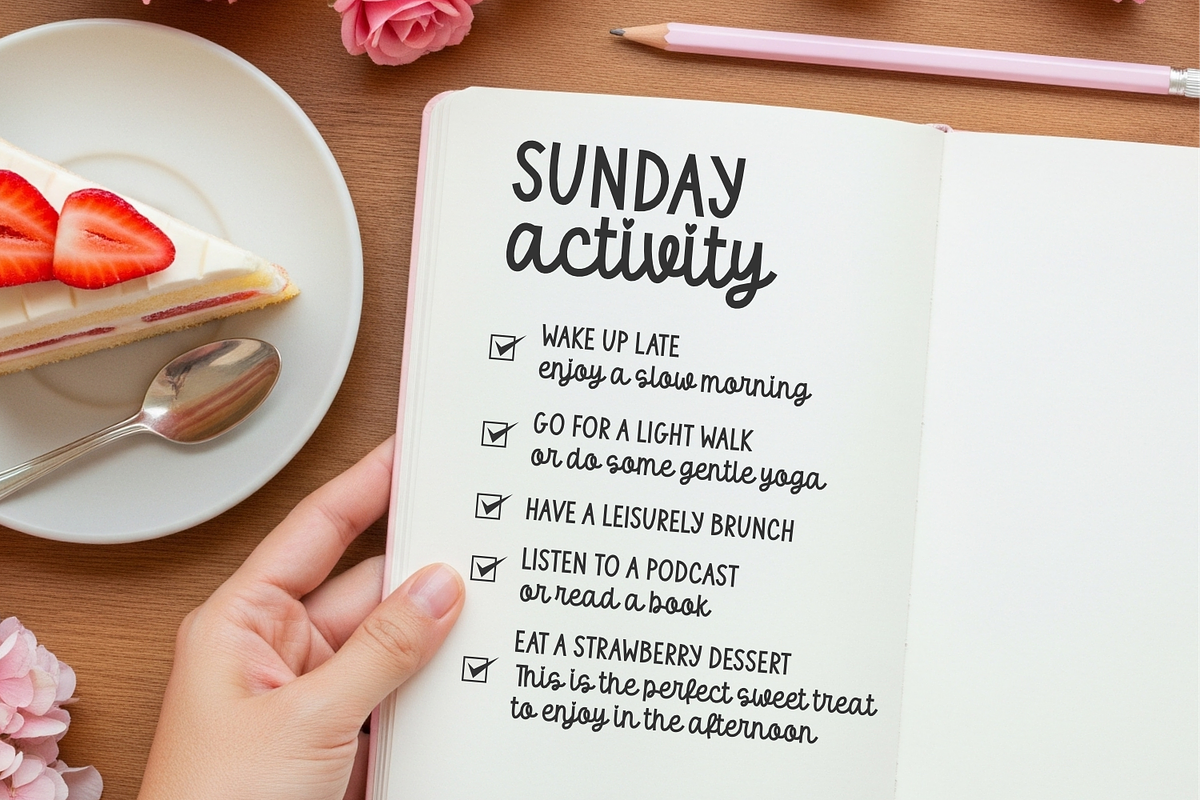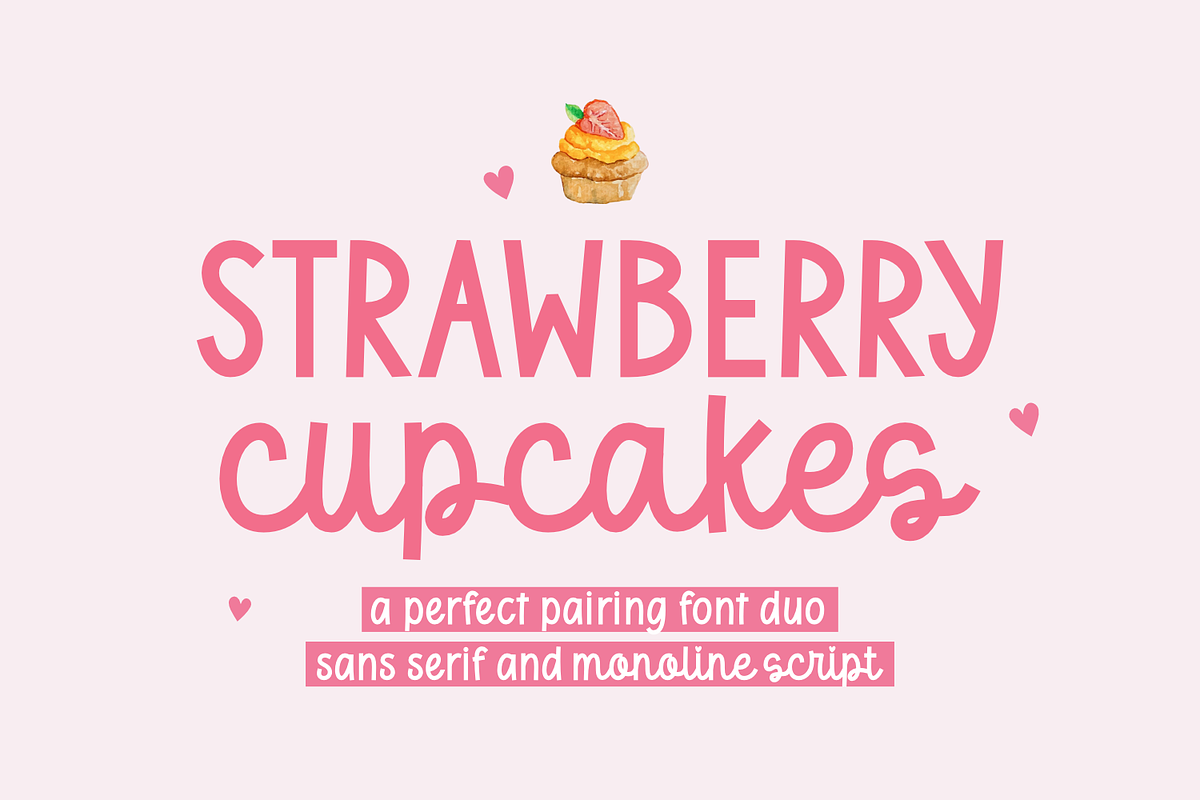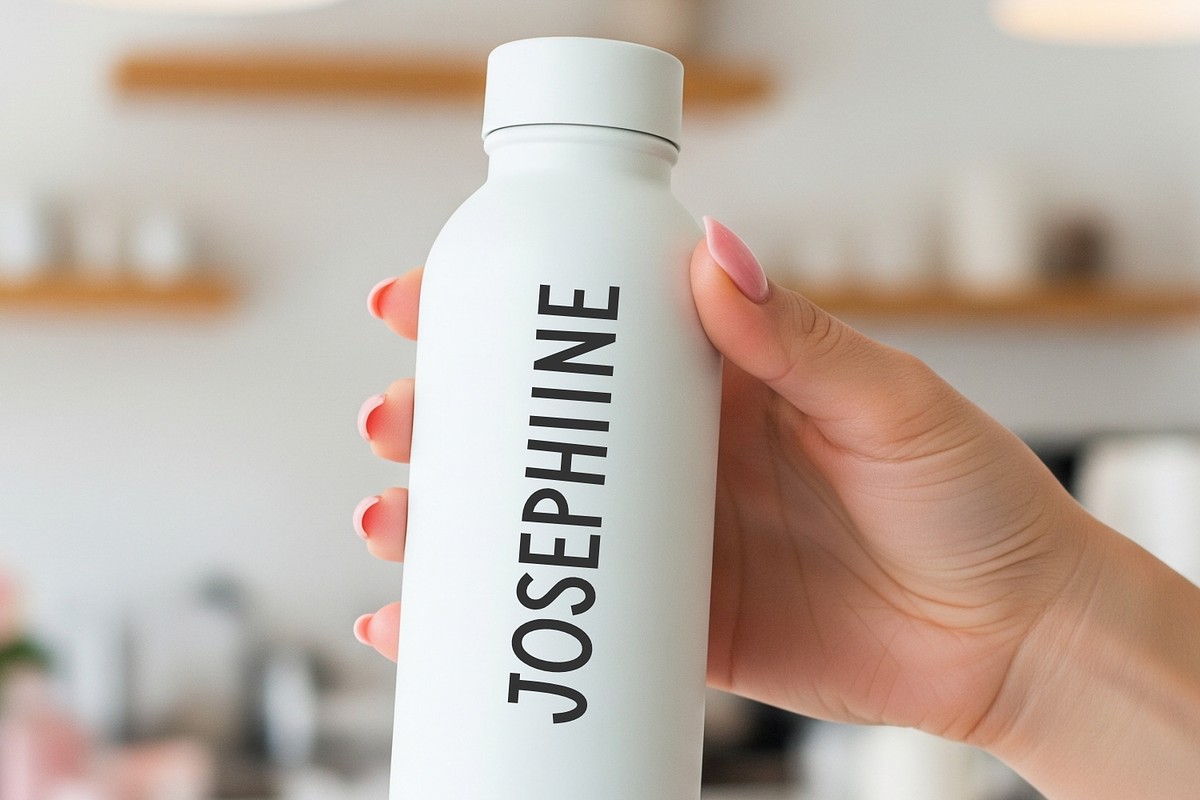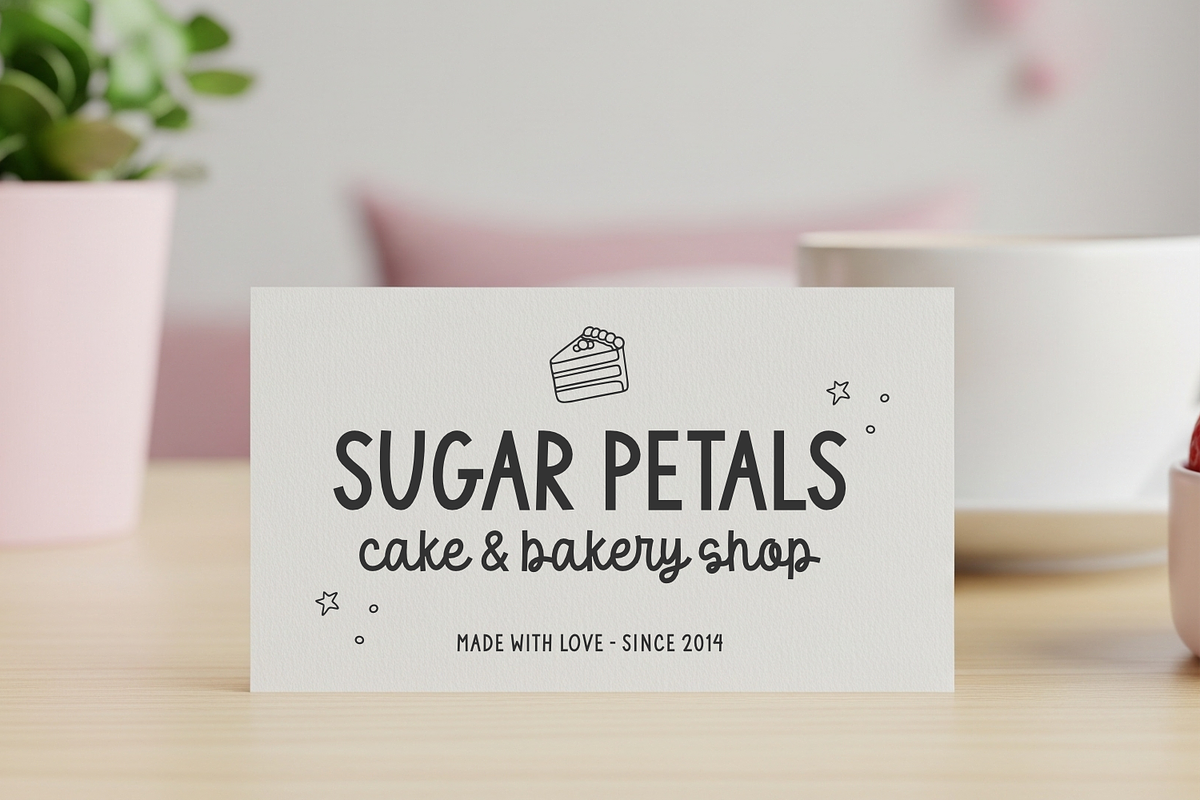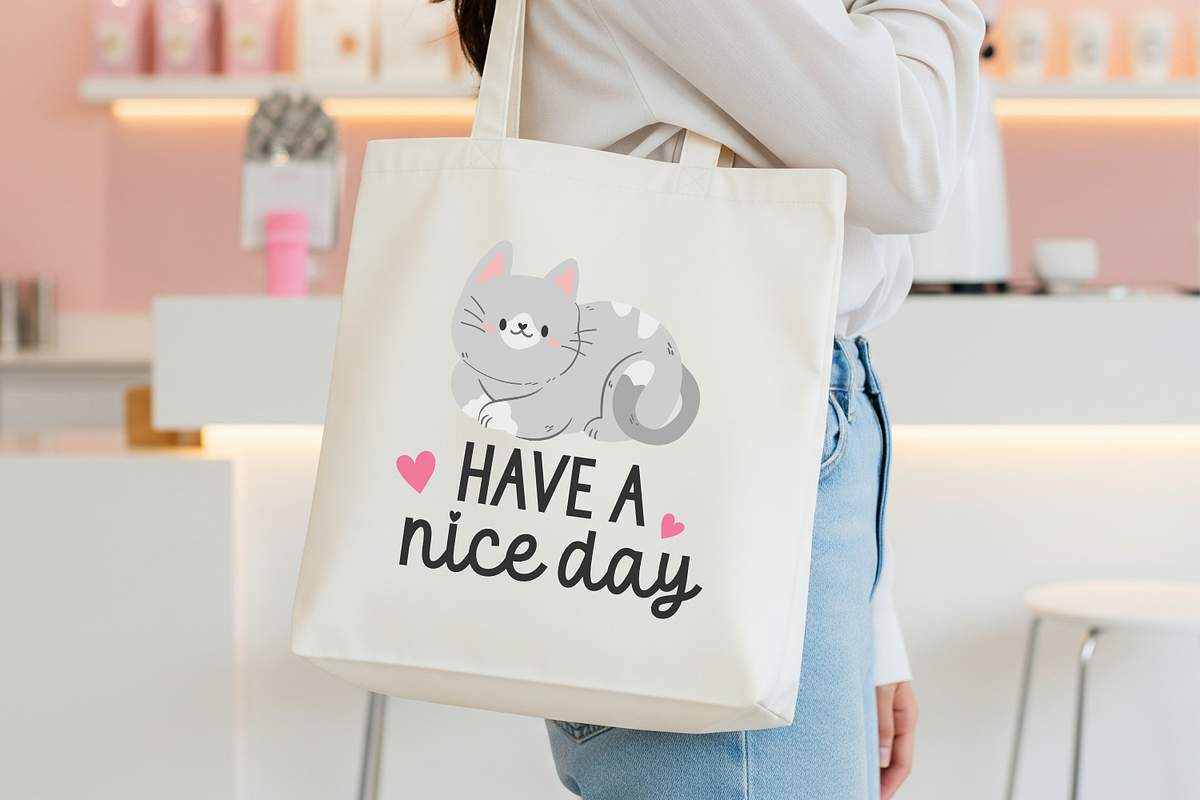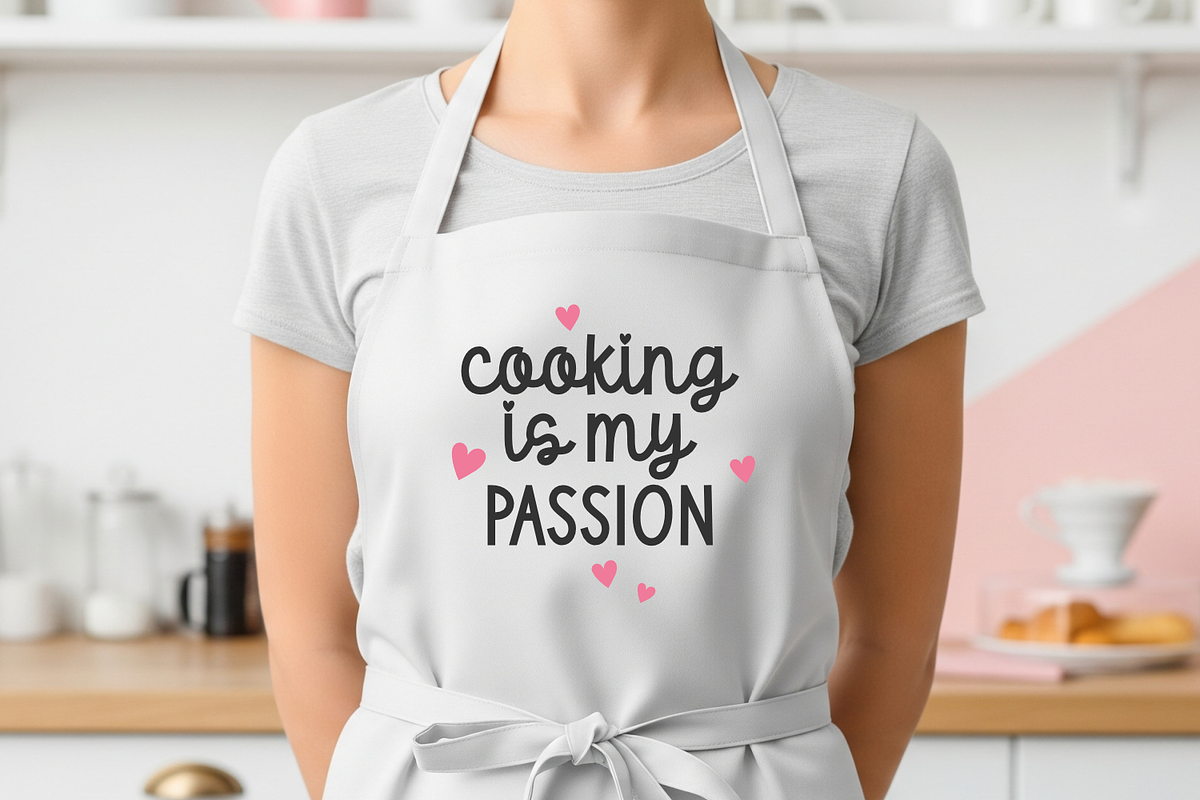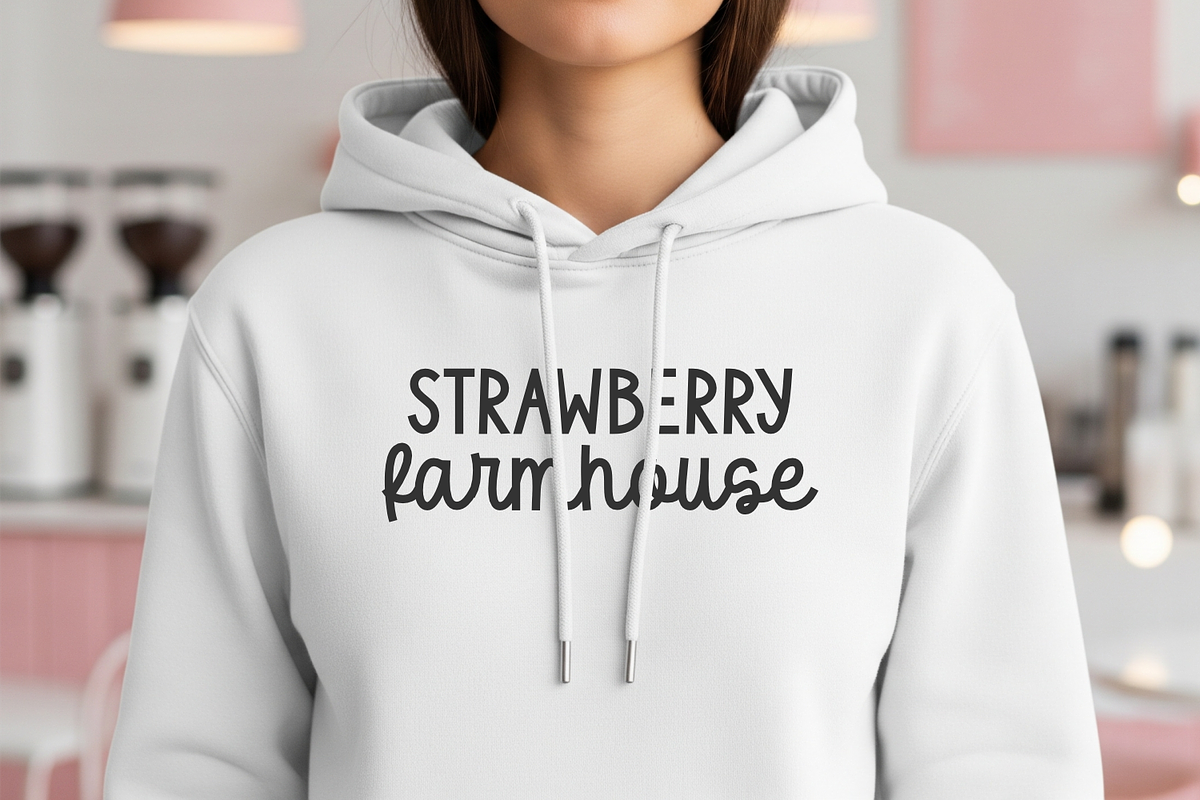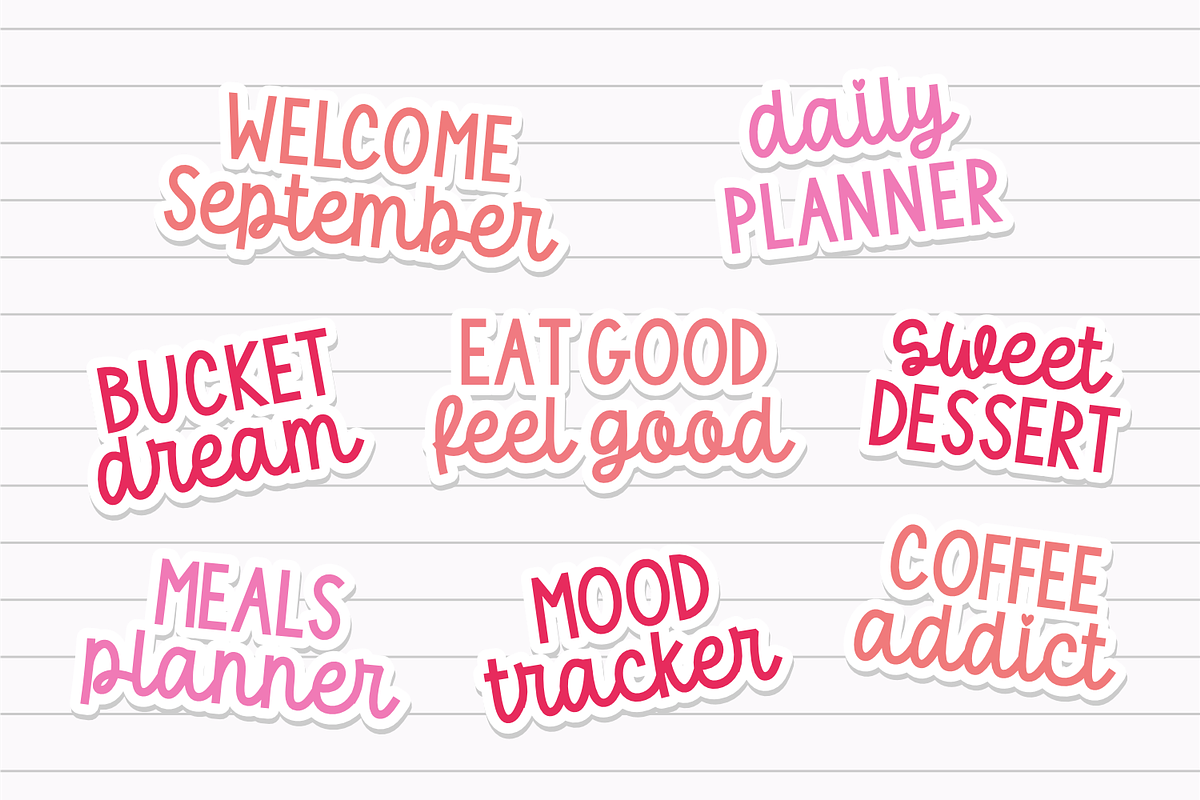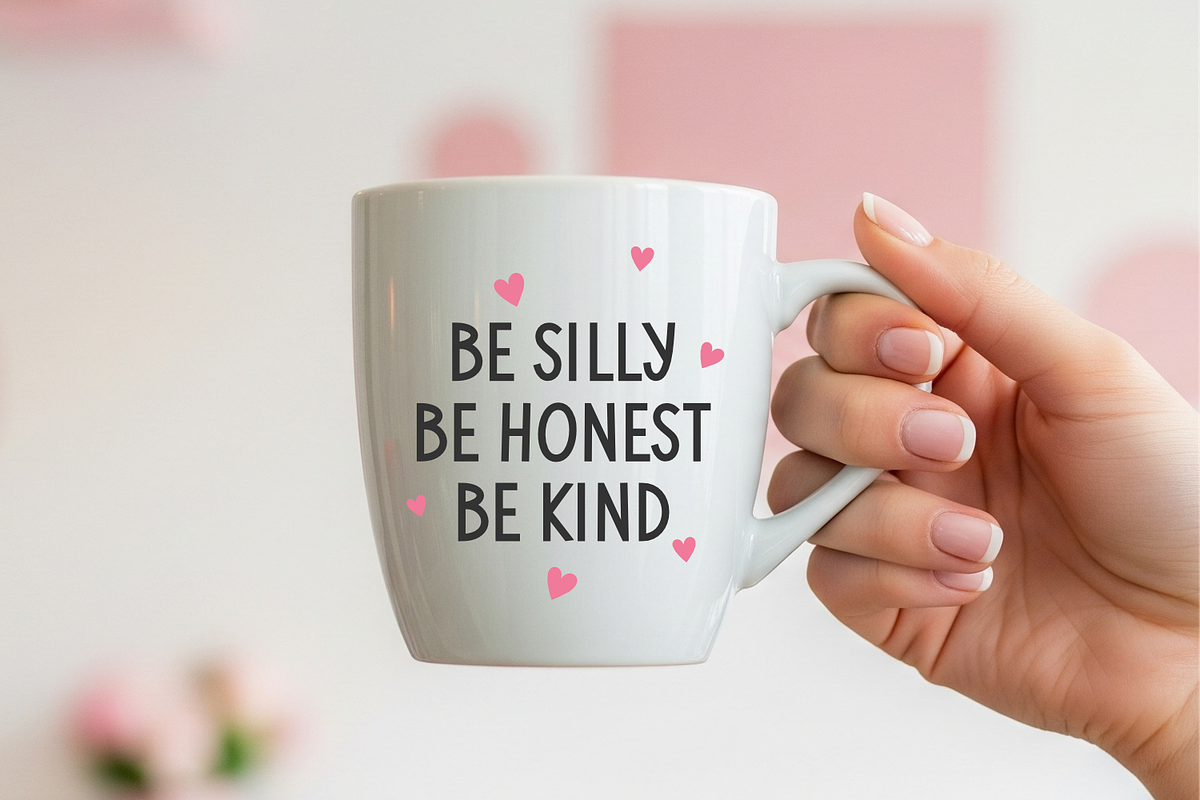
Strawberry Cupcakes - Font Duo
Strawberry Cupcakes typeface is a duo font that evokes the tantalizing charm of a savory pastry. Deliciously versatile, this font is offered in two luscious styles: a sleek sans serif and a playful script, making it an ideal blend for all design pursuits that are chic, contemporary, and imbued with a touch of charm. Strawberry Cupcakes is rolled out with an array of symbols, is multilingual, and interplays seamlessly with multiple applications such as Canva, Procreate, Cricut, and Silhouette Studio, among others.
Unleash your creativity with Strawberry Cupcakes across assorted print and digital outlets, including t-shirts, digital planners, mugs, tote bags, business cards, aprons, hoodies, stickers, branding, and beyond. Experiment with the uppercase and lowercase configurations and delve deep into the delightful allure this font brings, reminiscent of relishing a scrumptiously sweet strawberry cake.
Strawberry Cupcakes duo font is PUA encoded, allowing effortless access to all glyphs, swashes, and alternate characters.